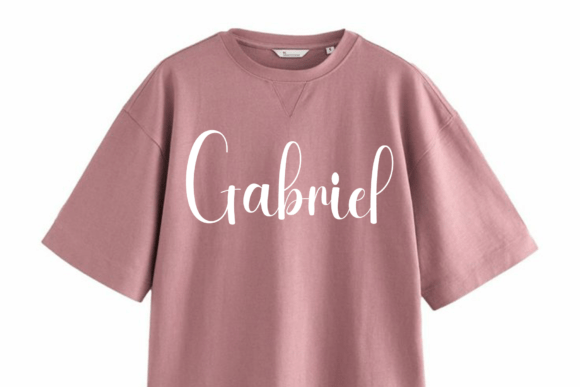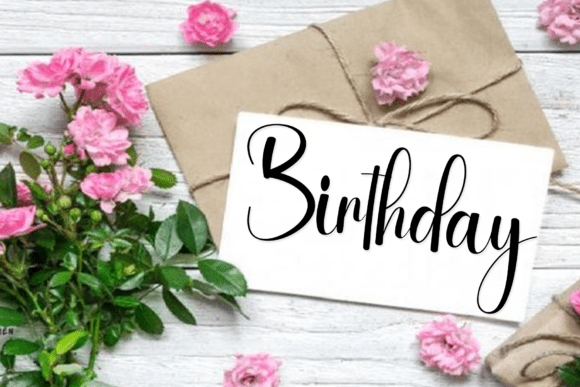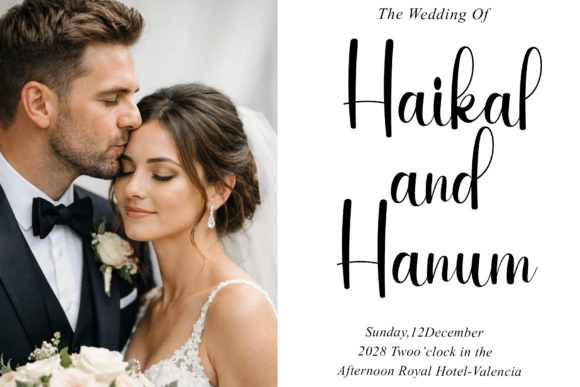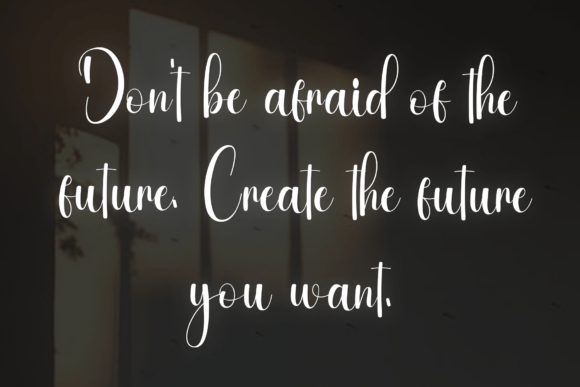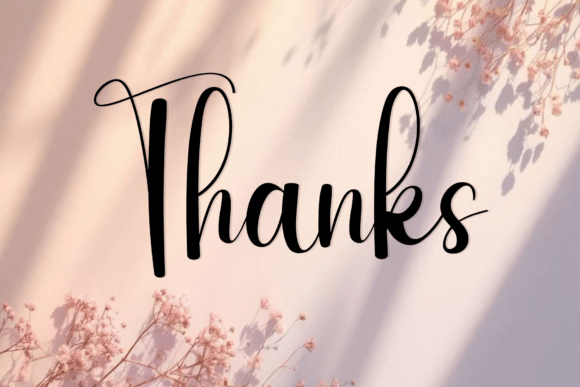
Unveiling the Charm of the Blushing Font
As a designer, have you ever found yourself stuck in a creative rut, searching for that perfect font to elevate your project? The thrill of discovery is one of the most exciting aspects of our profession. It’s that moment when the right combination of style and functionality comes together, igniting a spark of inspiration. For me, that moment happened when I stumbled upon the Blushing Font – a unique and professional handwritten font that embodies the essence of clarity and crisp elegance.
Designed to evoke a sense of freshness and sophistication, the Blushing Font features tall, thin strokes with a subtle, airy slant, making it an ideal choice for a wide range of applications, from travel photography to branding for outdoor gear. Its clean and approachable style also makes it a valuable asset for sophisticated web design. Whether you’re a seasoned designer or just starting out, the Blushing Font is sure to leave a lasting impression on your audience.
Key Features of Blushing Font
- Unique Characteristics: Blushing Font features a distinctive, hand-painted style with subtle texture and imperfections, giving it a warm, organic feel.
- Style Options: Blushing Font comes in multiple styles, including Regular, Bold, Italic, and Bold Italic, allowing users to customize their typography to suit different design needs.
Designer Review: Blushing Font
Blushing Font is an endearing script font that can add a touch of romance and whimsy to your design projects. ✨ I particularly enjoy the way the font’s rounded edges and subtle flourishes evoke a sense of hand-drawn charm. The font’s weight range allows for a good balance between delicate and bold typography, making it suitable for a variety of applications.
- Works well for wedding invitations, greeting cards, and other sentimental designs
- Features a range of weights to accommodate different design needs
However, Blushing Font also has some limitations. ⚠️ The font’s legibility can be compromised when used in smaller sizes or in conjunction with complex layouts. Additionally, some characters may require manual kerning to maintain proper spacing.
Overall, Blushing Font is a lovely addition to any designer’s toolkit. While it may not be suitable for every project, it’s a great choice for designs that require a touch of elegance and romance. With careful application, Blushing Font can add a unique and captivating element to your designs.
Tips for Getting the Most Out of the Blushing Font
Use the Blushing Font to add a touch of elegance and sophistication to your designs. Pair it with bold colors and clean lines for a modern look.
Experiment with different font sizes and styles to create visual interest and hierarchy in your design.
The Blushing Font is perfect for:
- Valentine’s Day and romantic-themed designs
- Beauty and wellness branding
- Any design that requires a touch of femininity and elegance